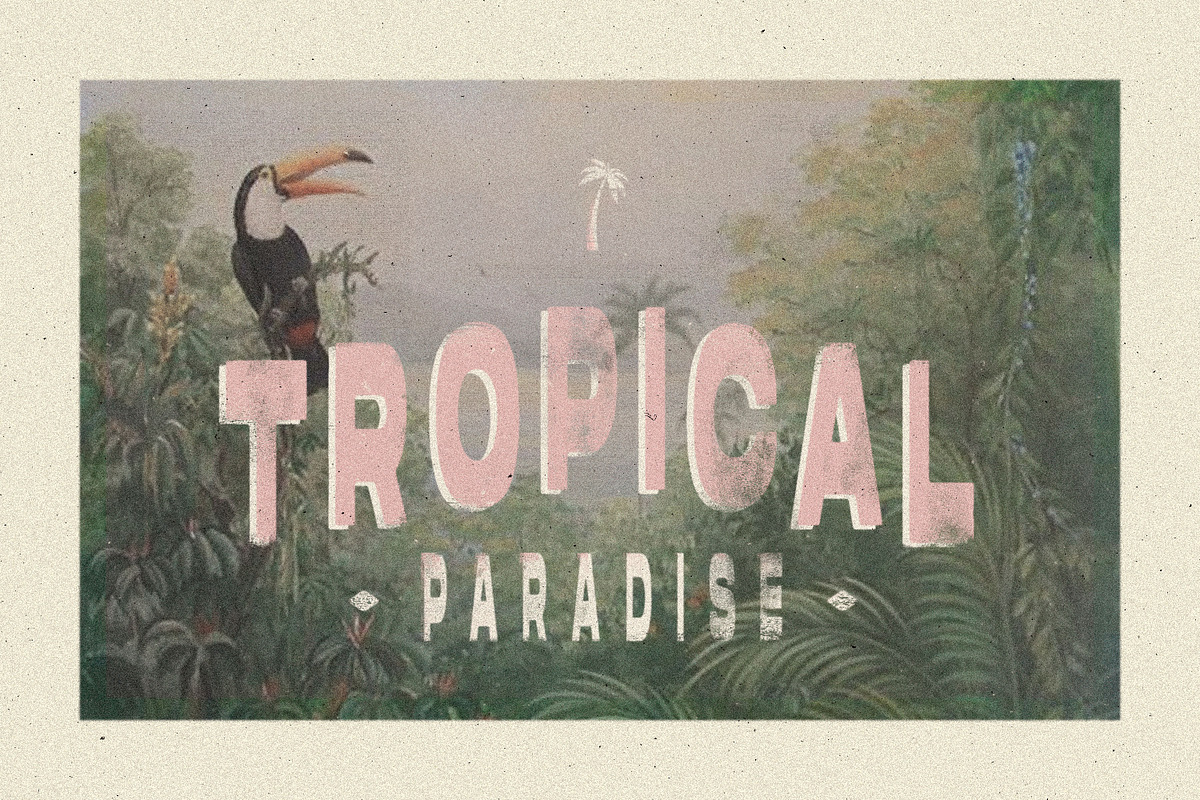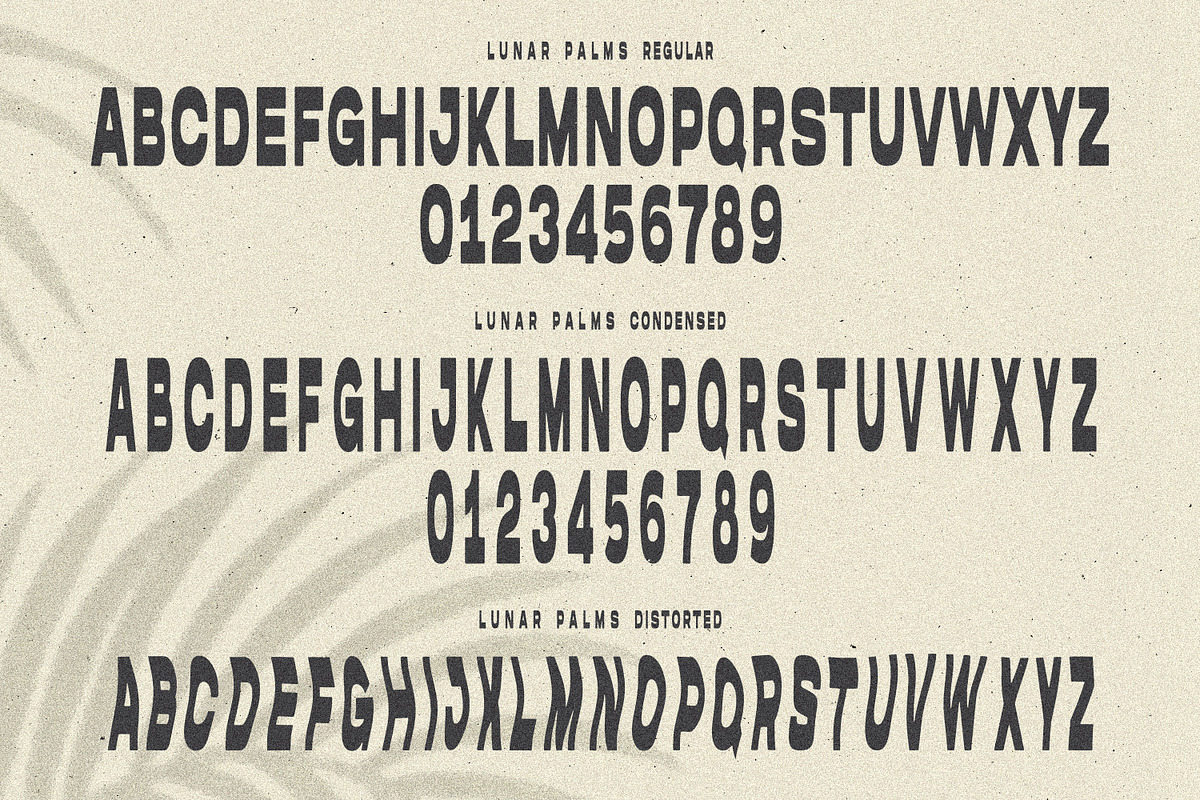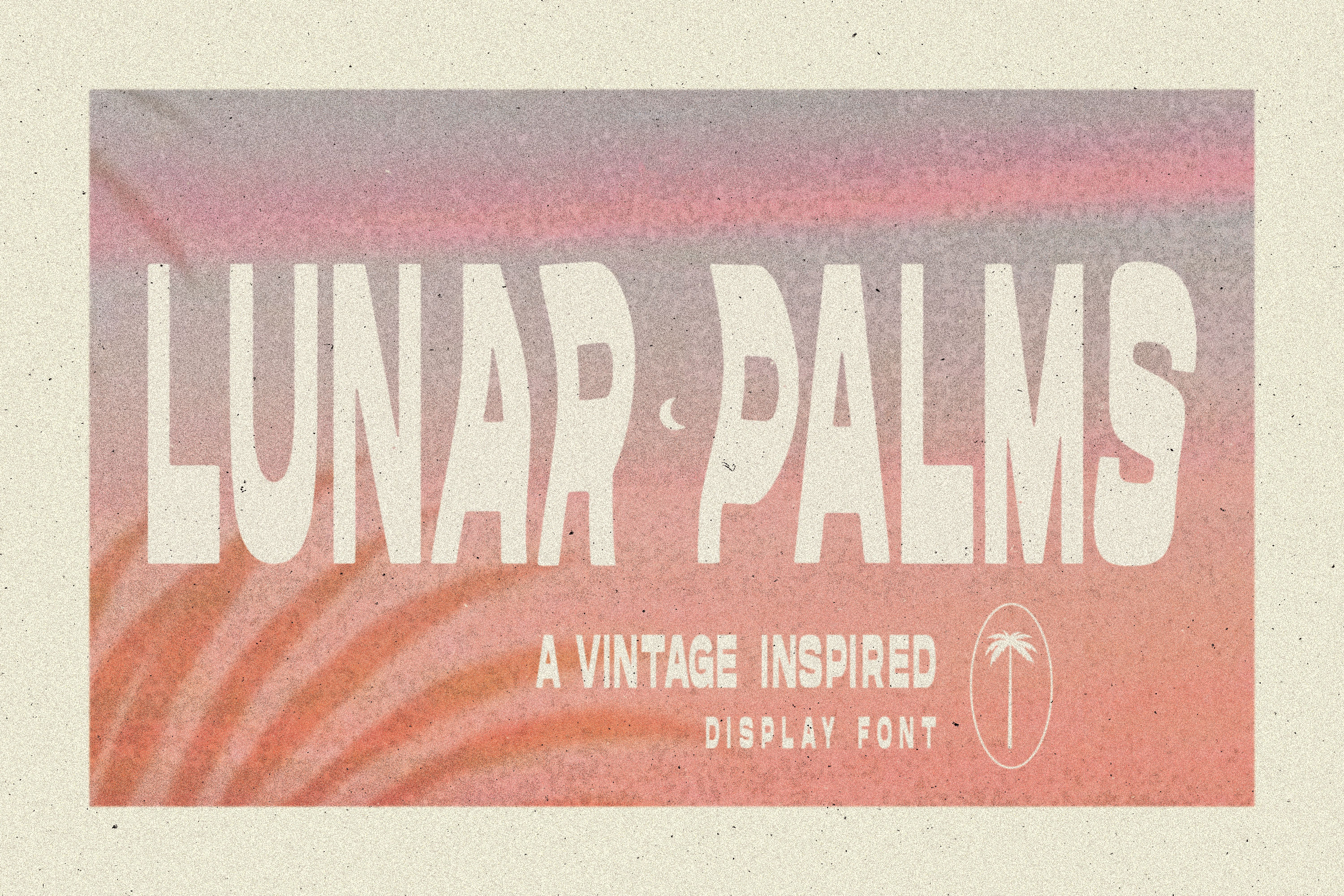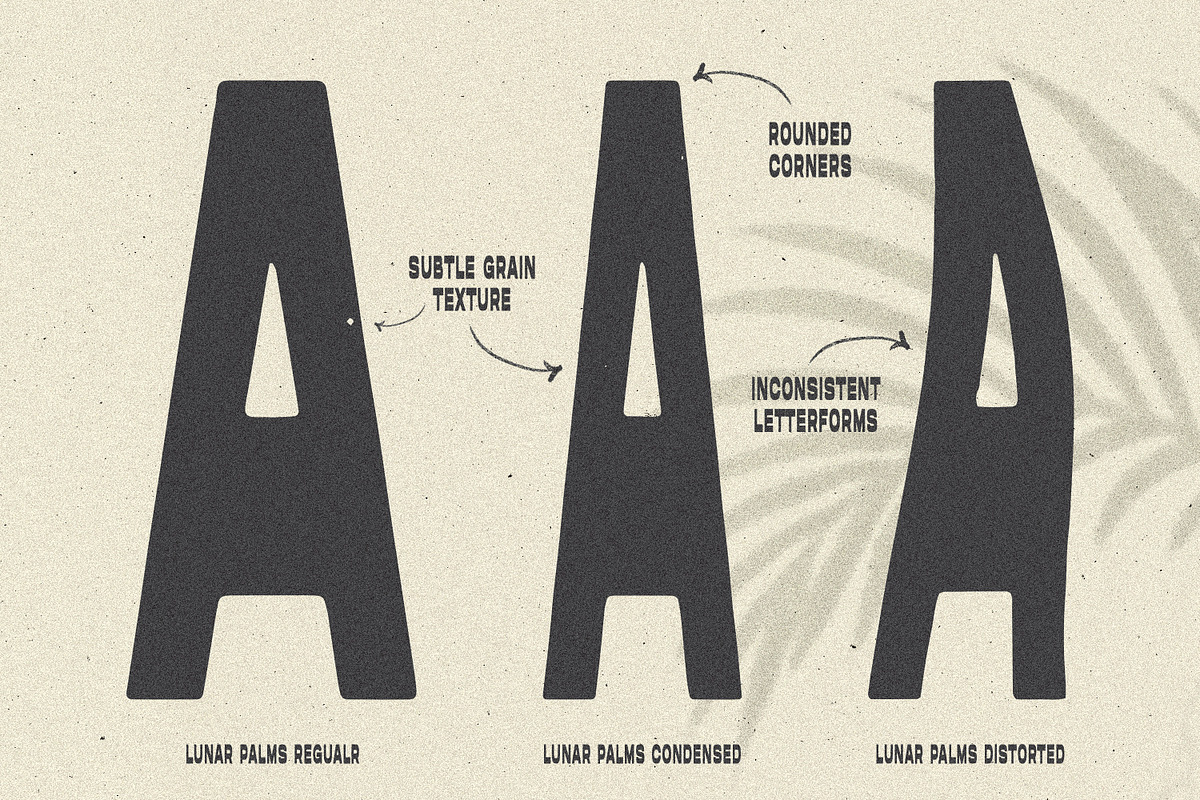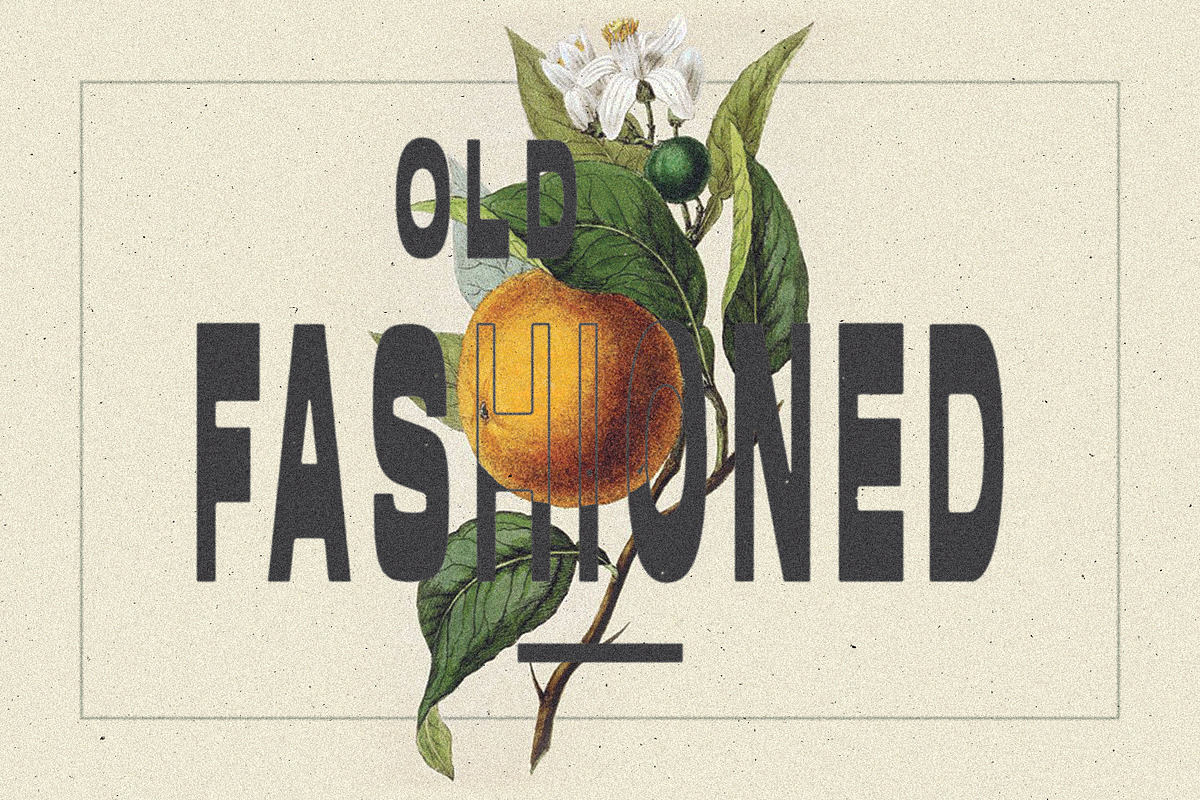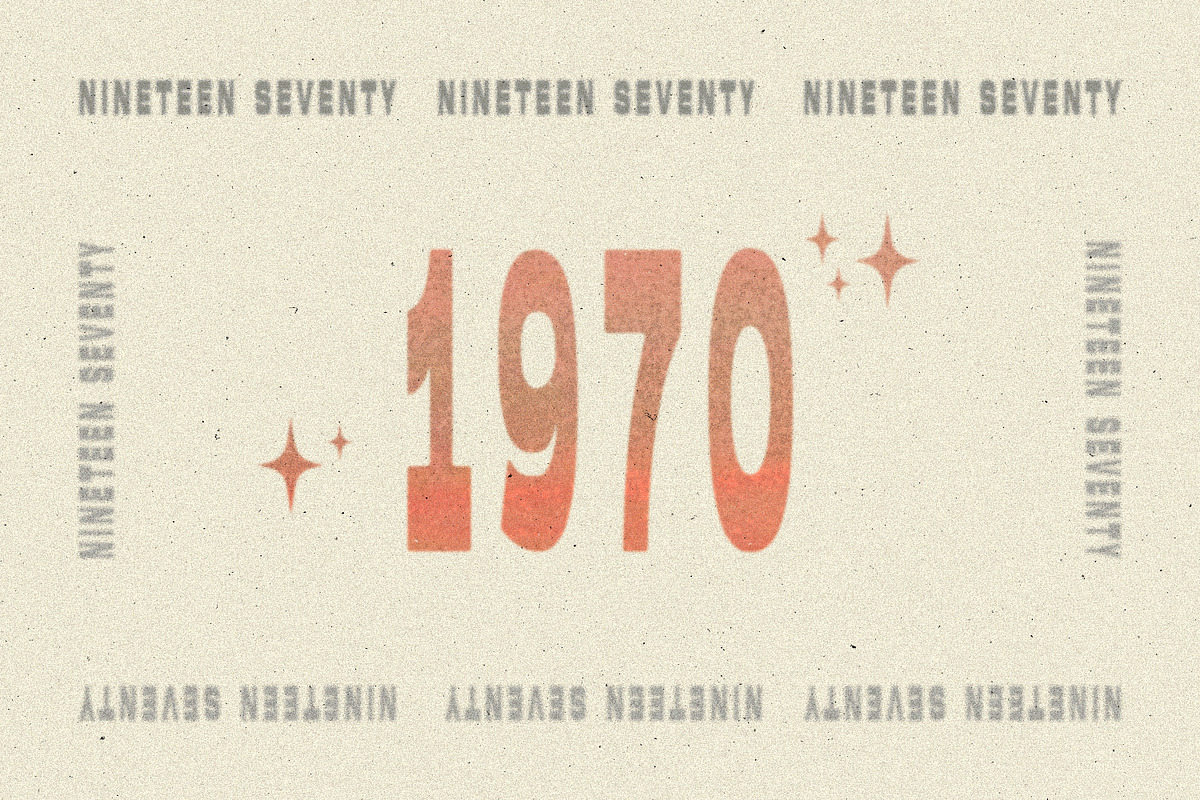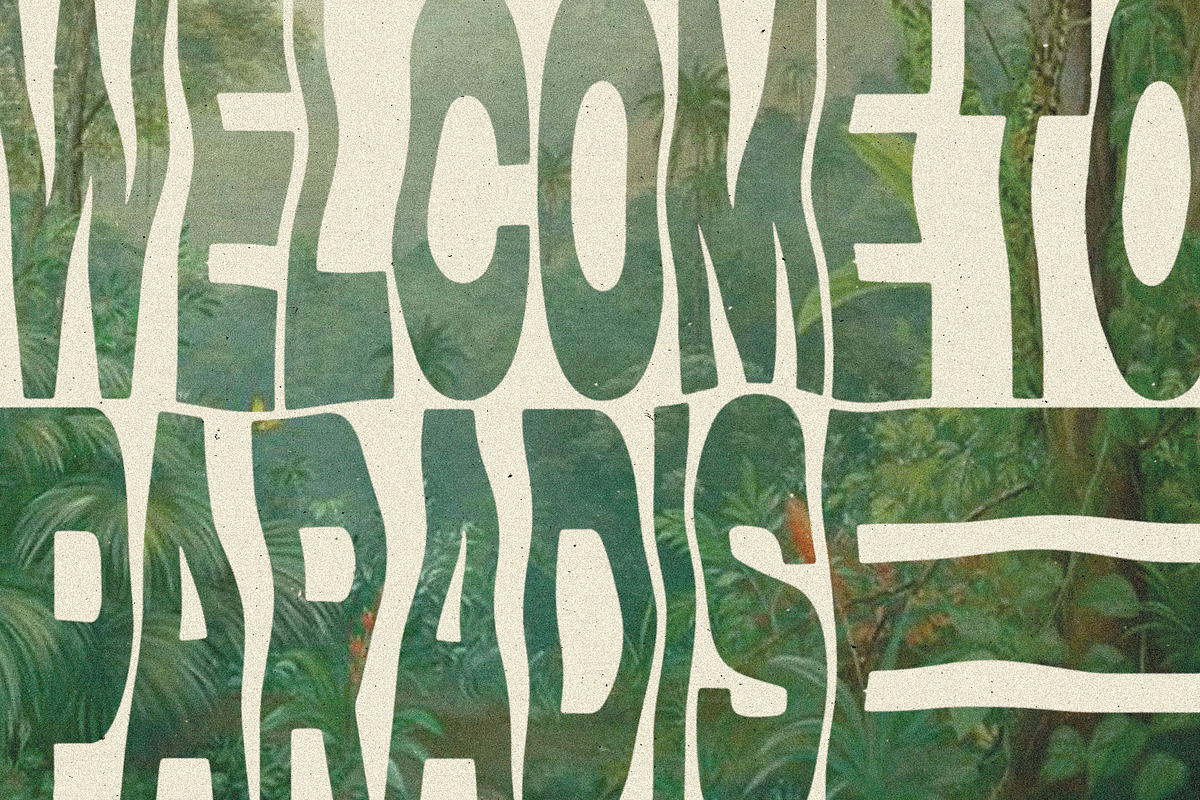
LUNAR PALMS Font
Introducing Lunar Palms Font.
Lunar Palms is a completely unique and custom font with a Mid Century twist, inspired by vintage and hand painted retro signs. Lunar Palms comes with 3 fonts and is perfect for any design project.
Includes: Lunar Palms Regular / Lunar Palms Condensed / Lunar Palms Distorted.
Features: All Caps Fonts + Numerals.